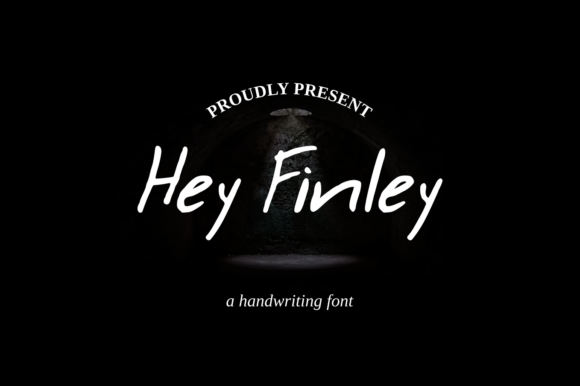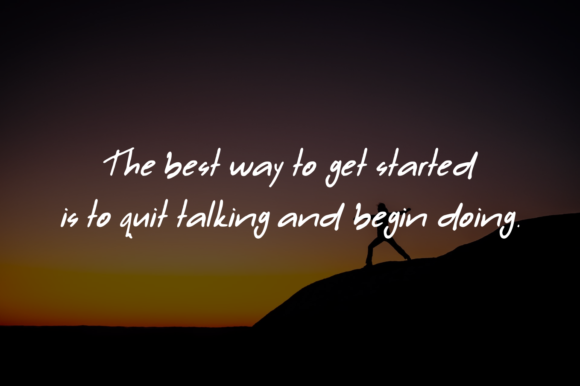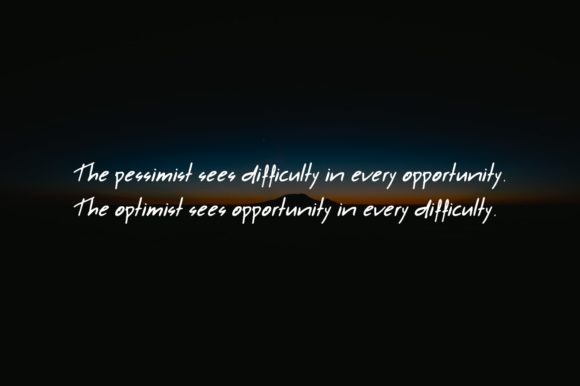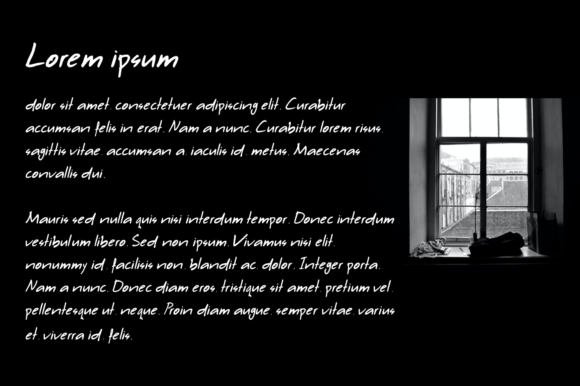
About Hey Finley Font
Hey Finley is a delicate and elegant handwritten font. Its distinct and well rounded letters make this font a masterpiece. Fall in love with its incredibly versatile style and use it to create spectacular designs!